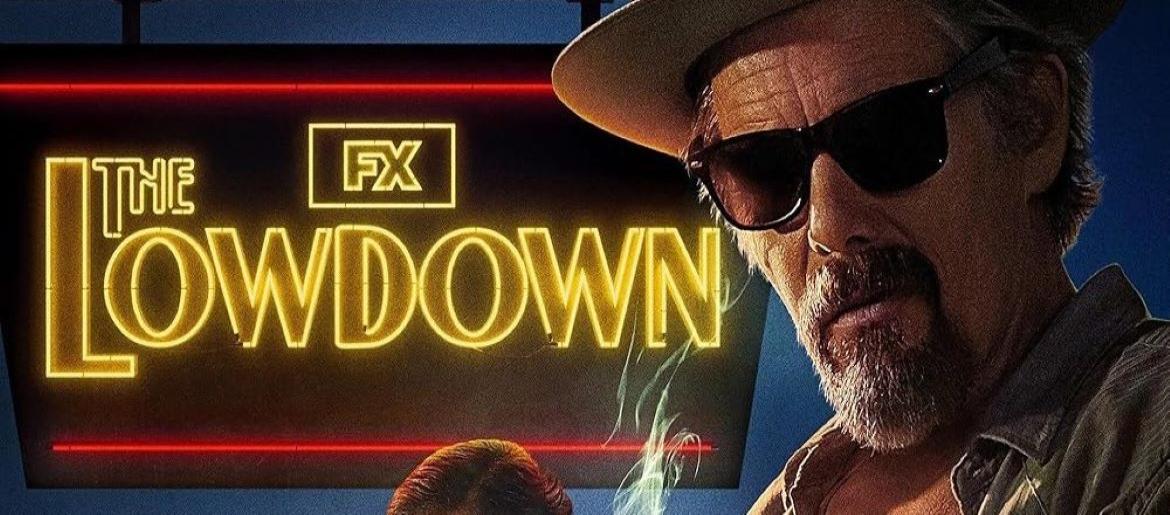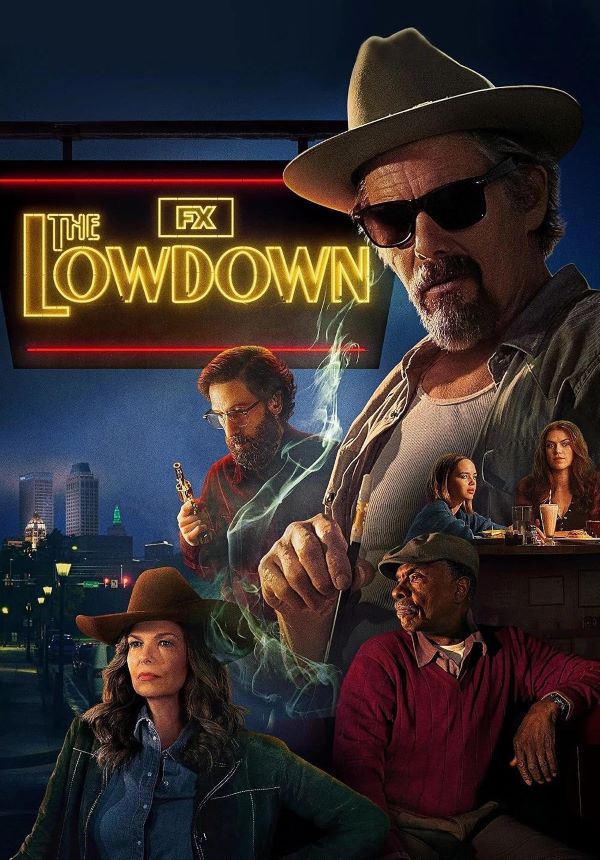
The Lowdown Font
What Font is The Lowdown?
The The Lowdown font is most likely Deco Design JNL Regular, a premium typeface known for its streamlined Art Deco accents and strong, clean lines. Its sophisticated yet bold look resonates with the show’s modern noir atmosphere and narrative clarity. While this exact font is commercial, we’ve found a free alternative font that closely mirrors its style—offering a great option for design projects inspired by the series’ visual identity.